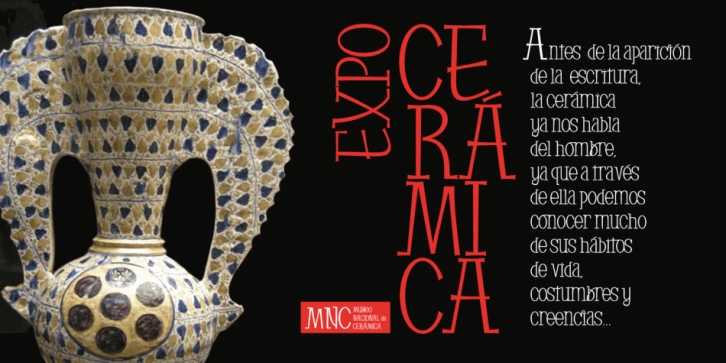
Designed by Carine de Wandeleer, Manises is a display serif and hand display font published by Eurotypo.
Located in the Valencian Community, Spain, Manises is very famous for its pottery. In the Middle Ages and the Renaissance, Manises was the most important production center for Spanish-Moresca ceramics, which was exported throughout Europe. At the beginning of the 16th century, Manises tiles were very commercially successful, especially of the heraldic type. Much appreciated by the Aragonese crown, Manises ceramics was also exported to France, Italy, and especially to Naples. As a big fan of Paterna and Manises ceramics, Naples influenced other Italian courts. Calixto III and Alejandro VI continuously commissioned Valencian pieces and tiles for the halls of the Vatican. The export also extended to Sicily, Venice, Turkey, Cyprus and even Flanders and the Baltic countries. The palaces of all the courts of Europe were enriched with this art. Many painters reproduced it in his paintings. It can be seen in the work of Humberto and John Van Eyck, and in the central panel of a triptych by Hugo Van der Goes (Uffizi Gallery, Florence). In this city there are also some frescoes by Domenico Ghirlandaio in which the Arabic-Valencian earthenware appears.
Manises font is inspired by a text written on a 16th century tile, but adapting it to our times and giving it a very modern air. It is characterised by being able to combine uppercase and lowercase letters in a conventional manner, or use only capitals, or only lowercase letters, or, a random combination of both. It comes with an extra of many ligatures, stylistic alternates, and a set of very useful catchwords, to give more modernity to your text.
Manises looks lovely on wedding invitations, greeting cards, logos, posters, labels, t-shirt design, logos, children’s material, in ink or water-colour based designs, fashion, magazines, food packaging and menus, book covers and whatever your imagination holds!